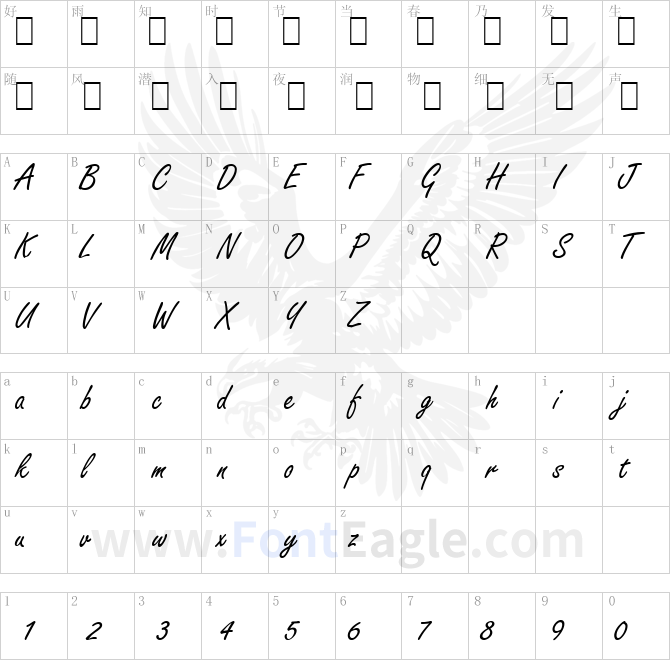
Twilight-3 is a great font, widely used in graphic design, single-page menu design, poster design and other fields, and is deeply loved by designers.Twilight-3 download.